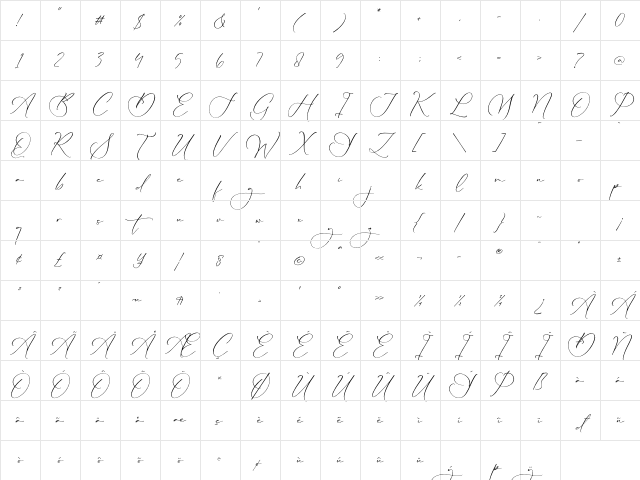
Complete Lillywhite Regular glyph index. Displaying only characters natively supported by Lillywhite Regular font.
Lillywhite is a composed and adaptable typeface that performs quietly and consistently across a wide range of design contexts.